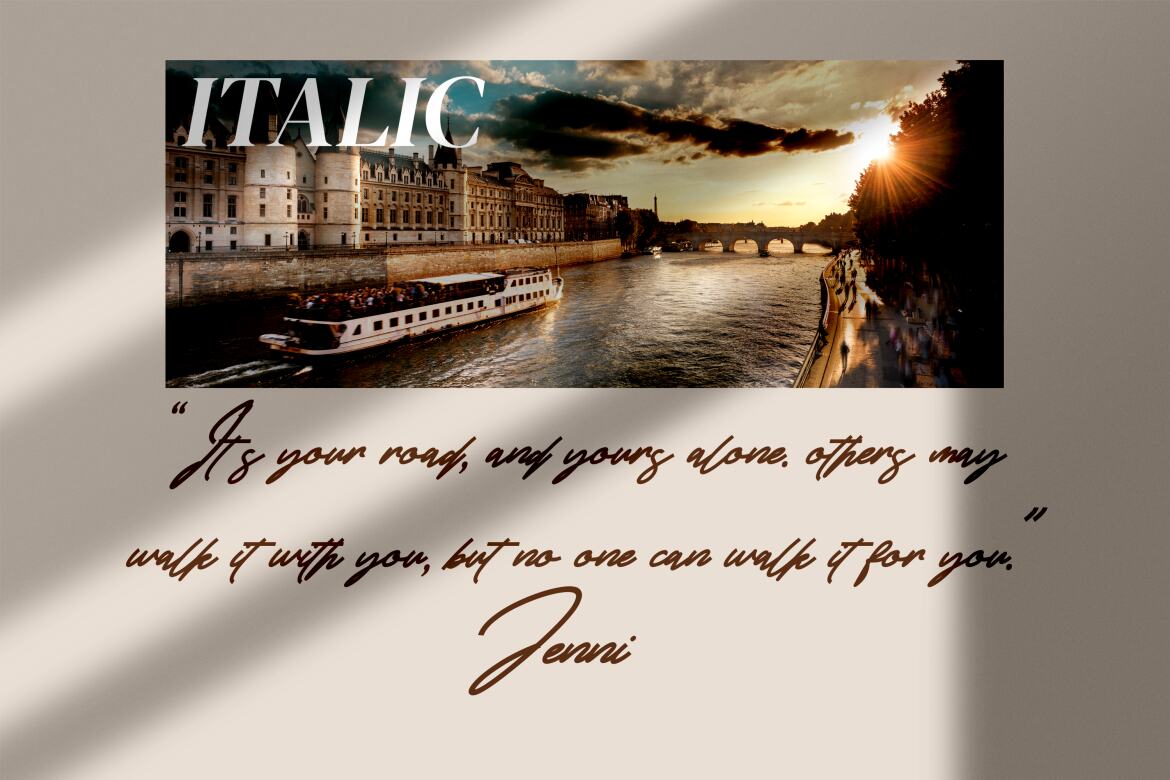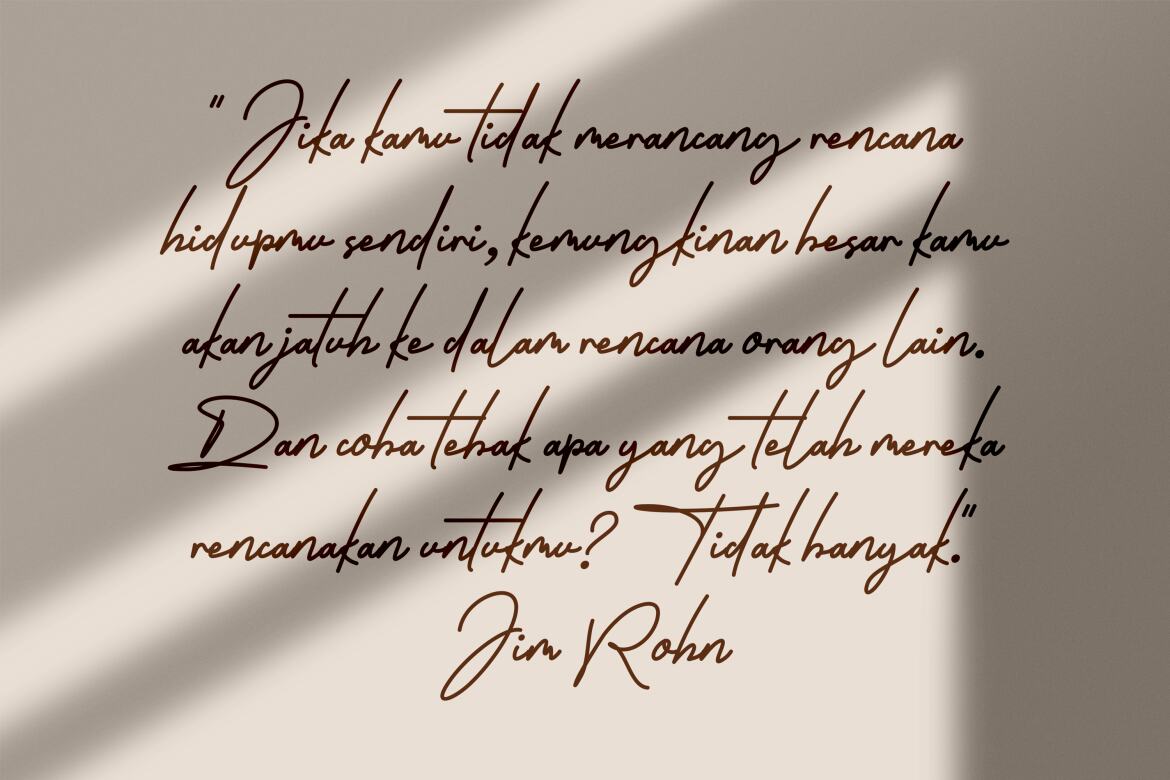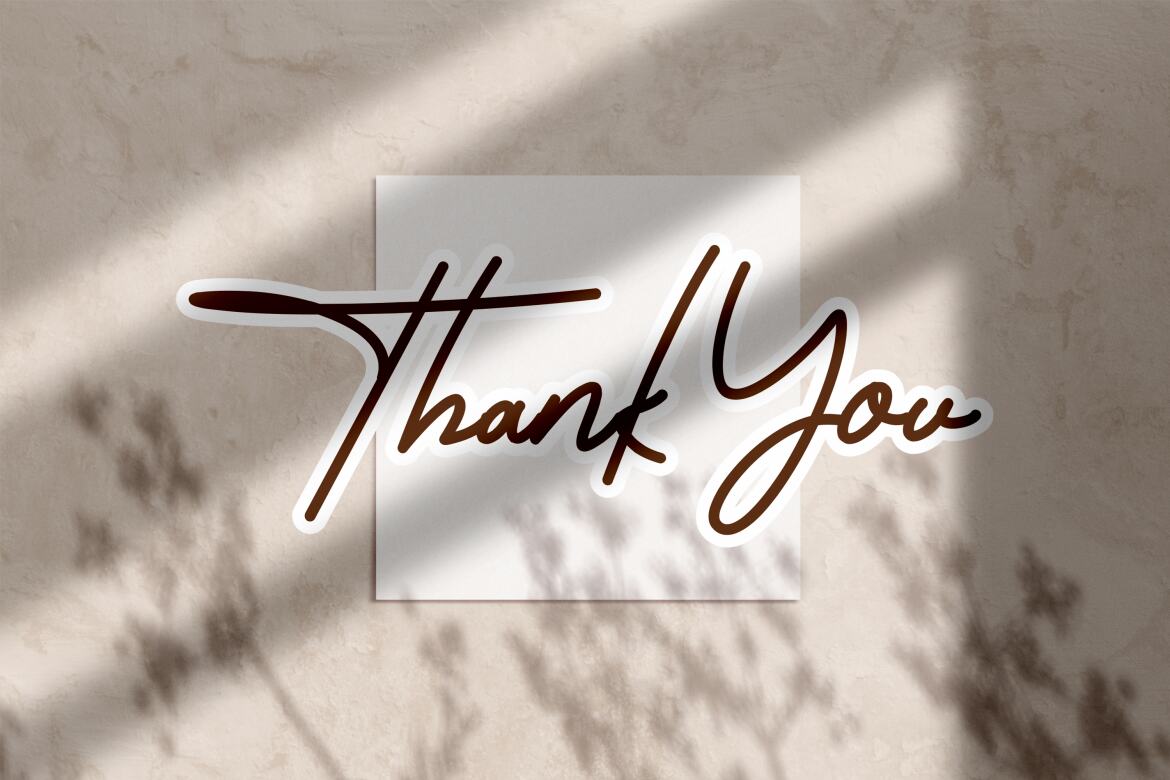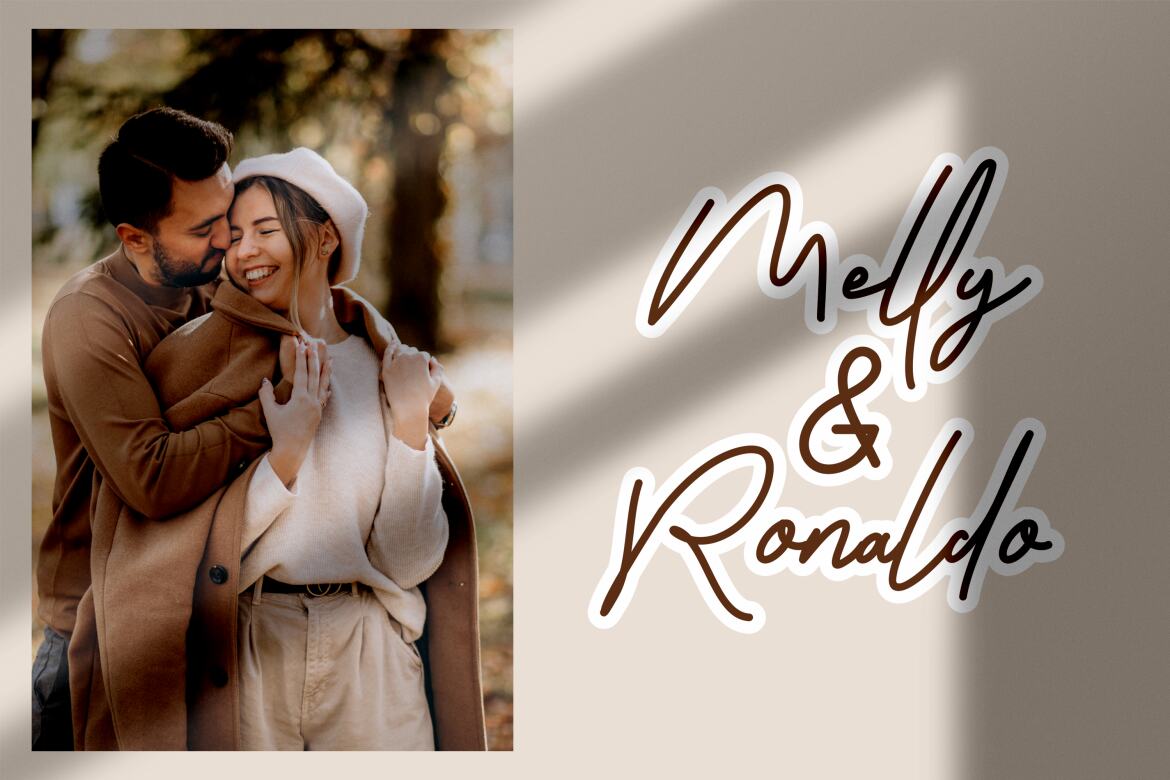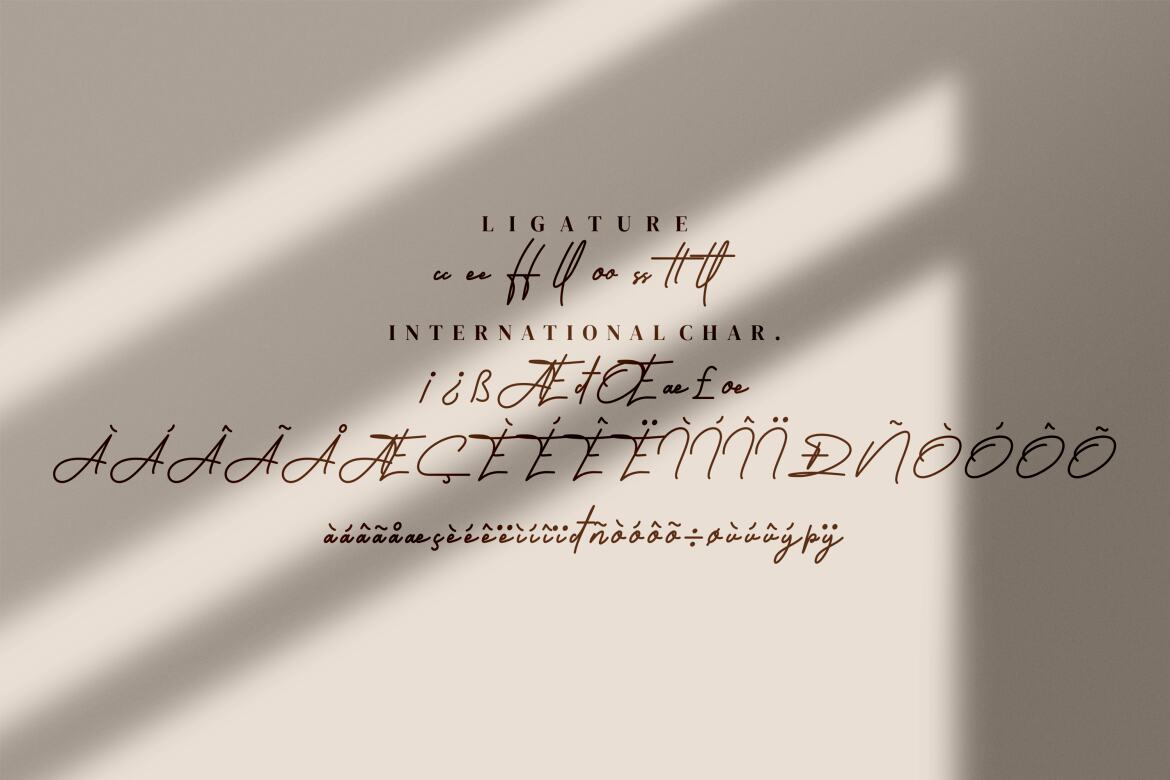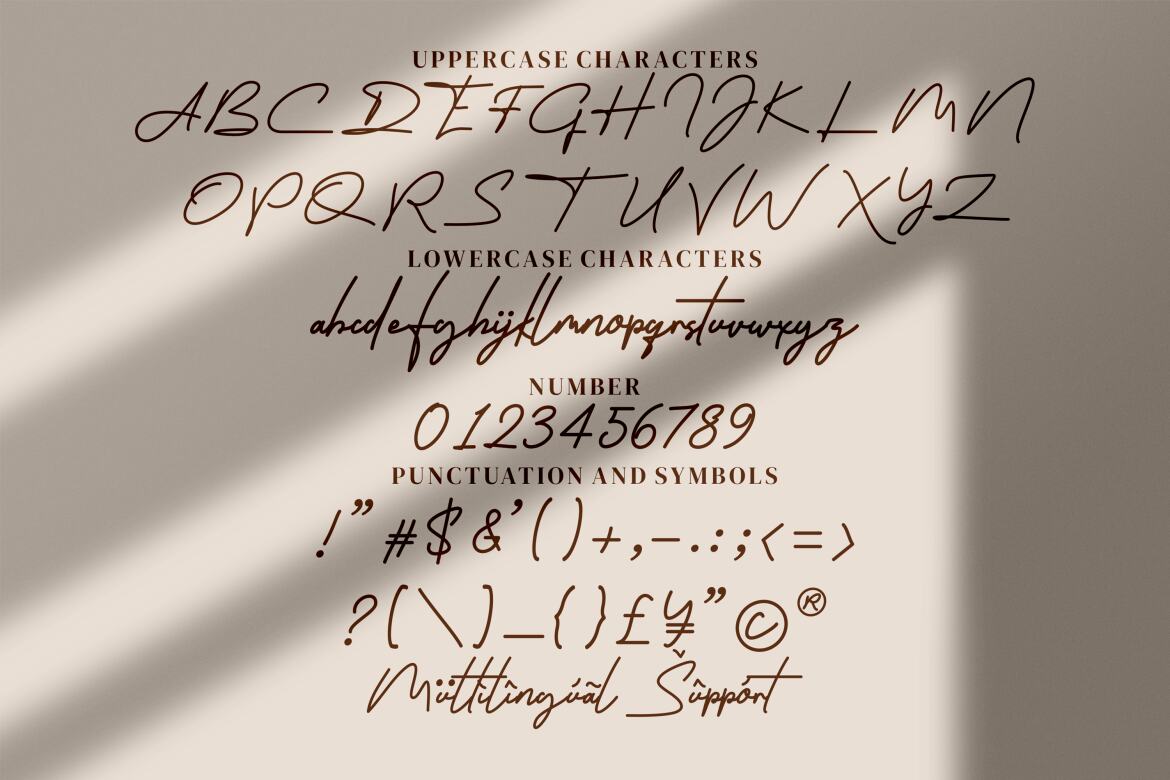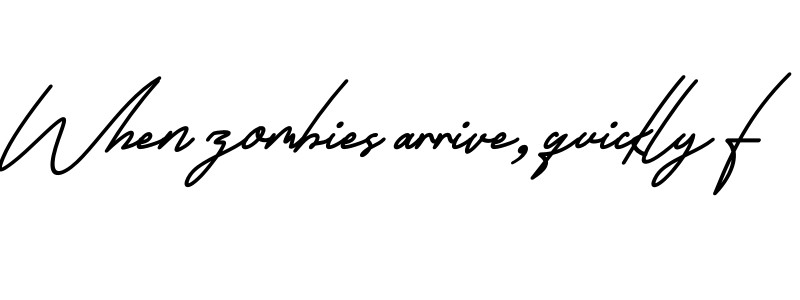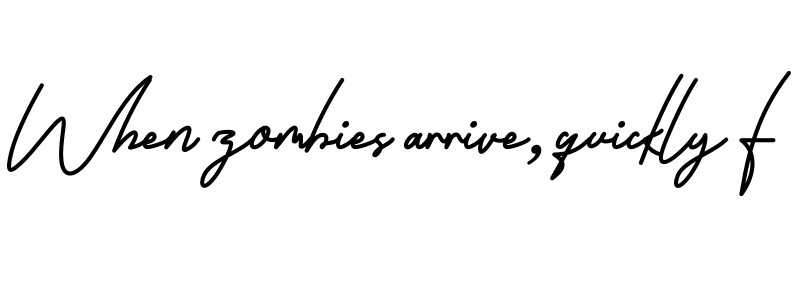
Alatheen FREE Signature Font
Alatheen - Monoline Script style font, suitable for any projects such as: logos, branding projects, homeware designs, product packaging, mugs, quotes, posters, shopping bags, t-shirts, book covers, name card, invitation cards, greeting cards, label, photography, watermark, special events, and all your other luxury projects that need a premium signature taste.